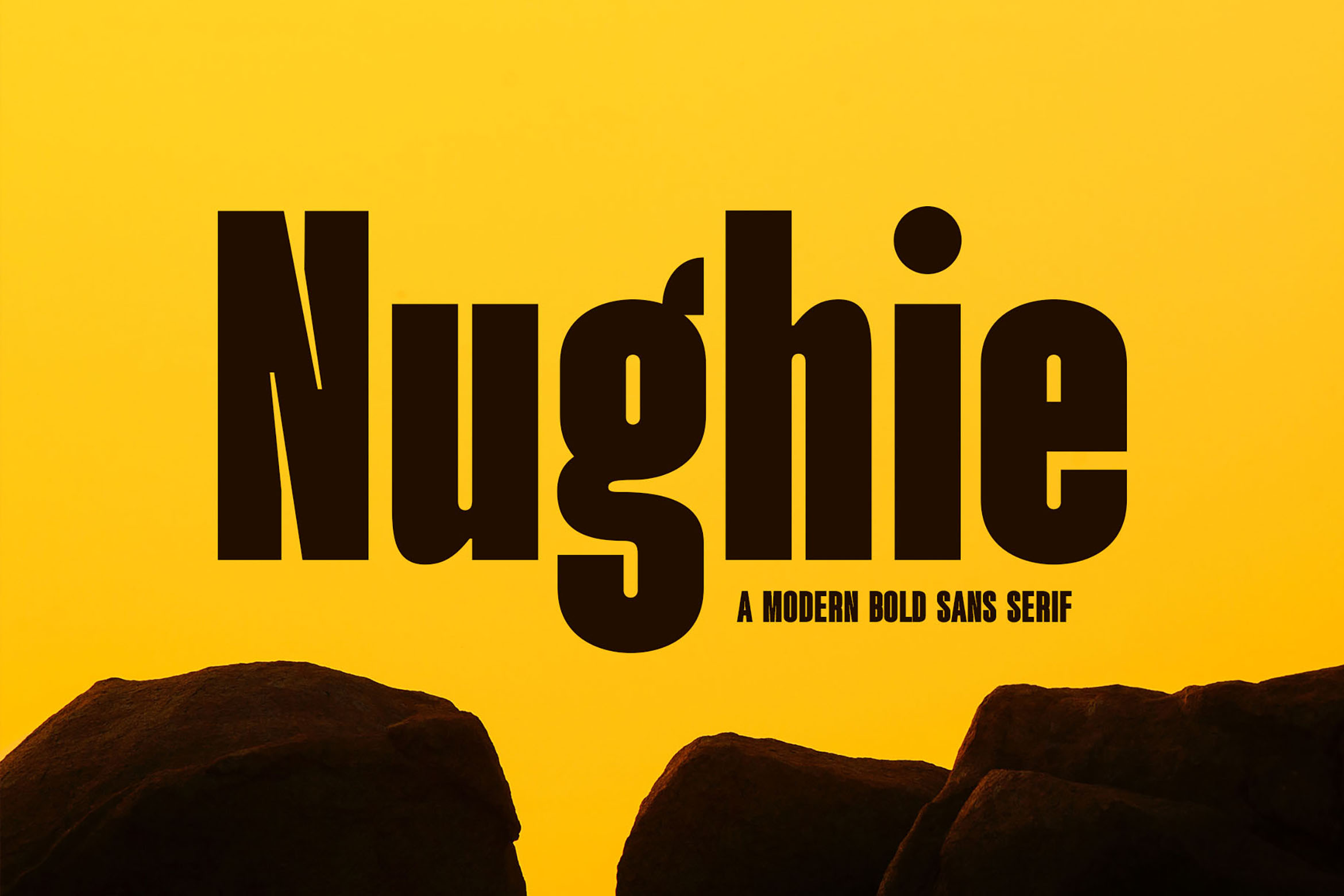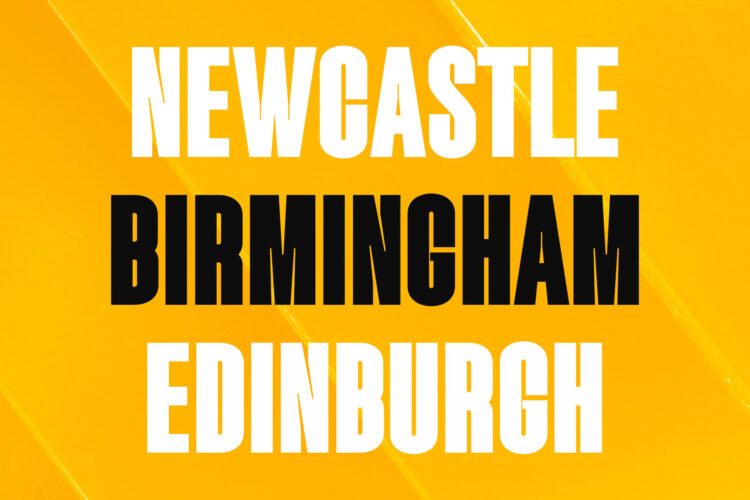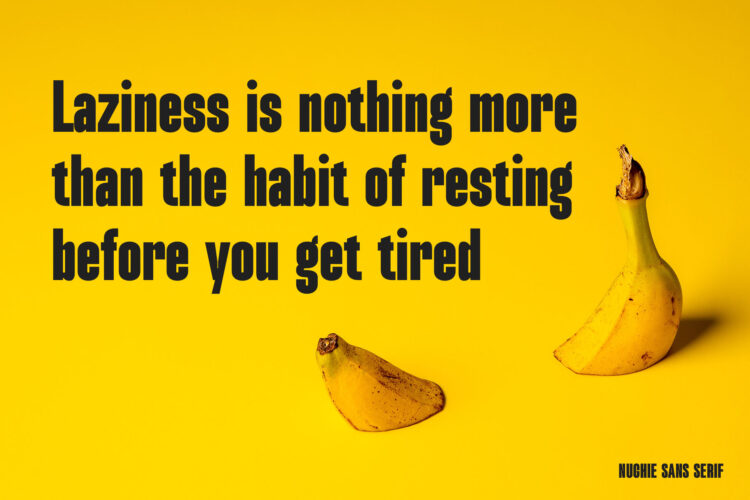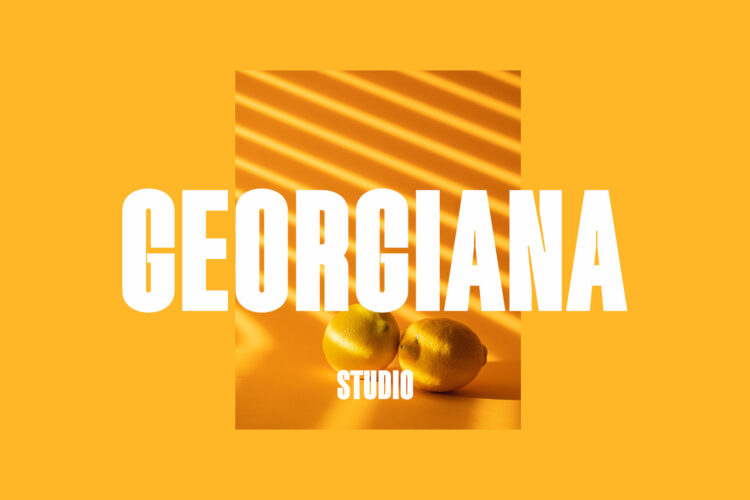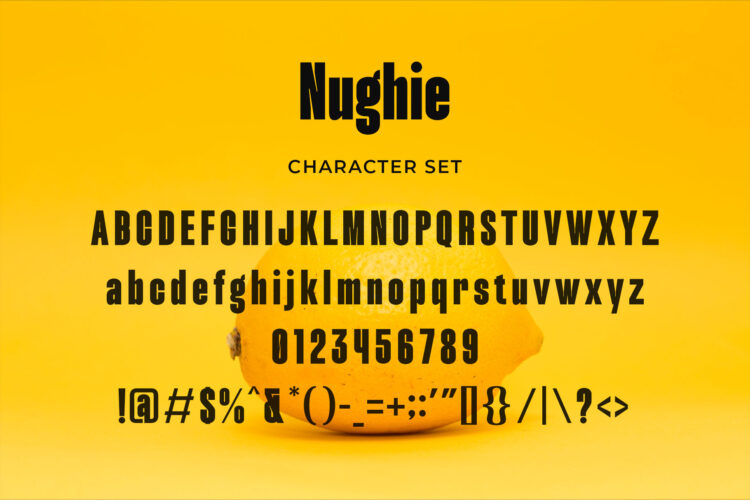
Introducing our new Nughie, modern sans serif font with elegant style this is perfect for branding, logos, invitation, magazines, product packaging and more.
Nughie – Modern Bold Sans Serif